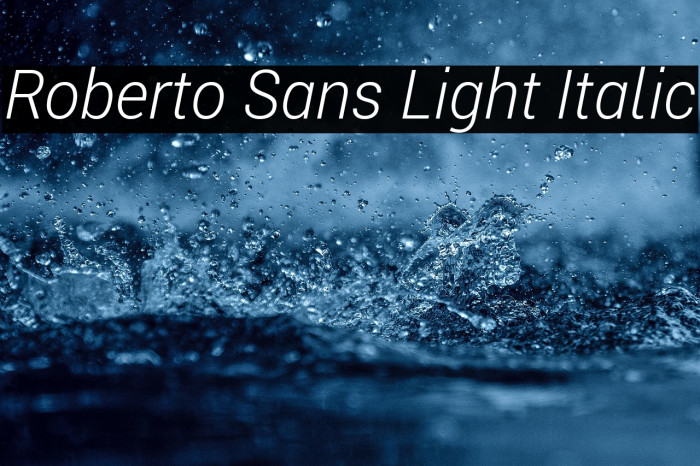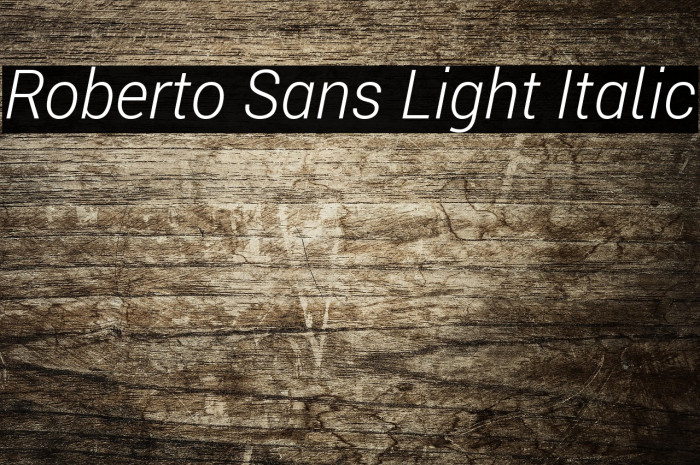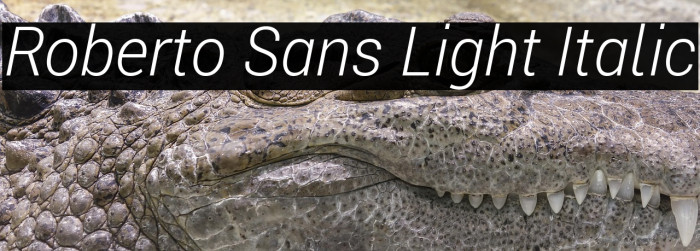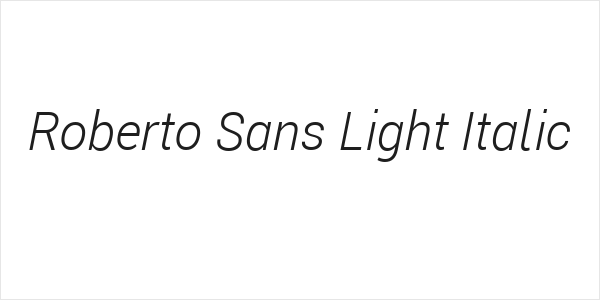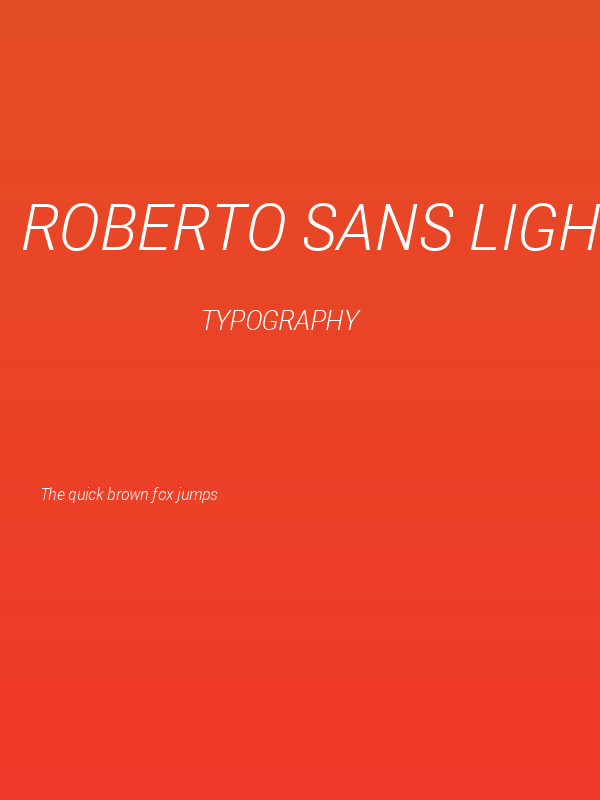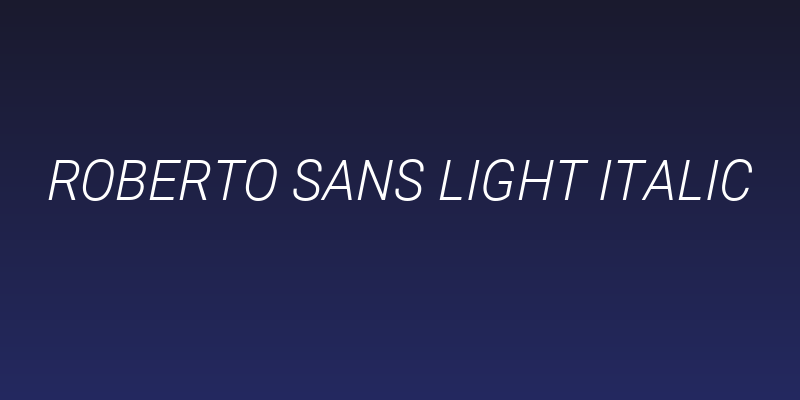
Roberto Sans Light Italic Font
Roberto Sans Light Italic Description
This font features a sleek and modern sans-serif design with a light weight and italic style. The characters are elegantly slanted, providing a sense of motion and fluidity. The strokes are consistent and smooth, contributing to a clean and professional appearance. The font maintains a balanced proportion between height and width, ensuring readability across various sizes. Its minimalistic approach makes it versatile for both digital and print media. The character spacing is normal, allowing for clear legibility without overcrowding. This font is ideal for projects that require a contemporary and sophisticated look.